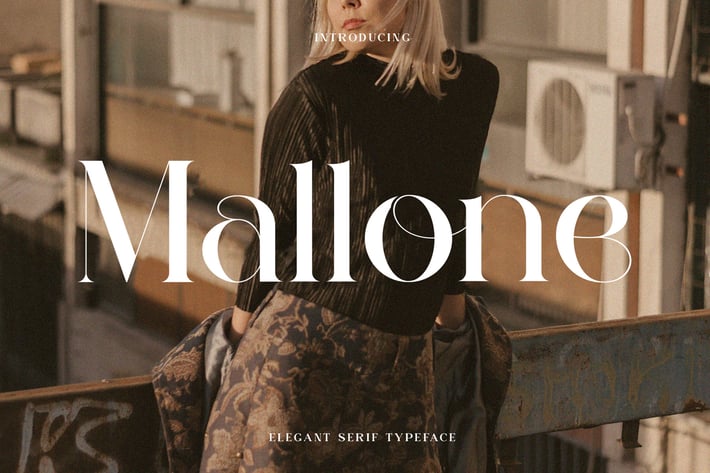
Mallone Elegant Serif Typeface
Mallone Modern Serif Typeface inspired by the famous minimalist logo perfect for the purposes of designing templates, brochures, videos, advertising branding, logos, invitation, layout design, elegant crafting, beauty design and other